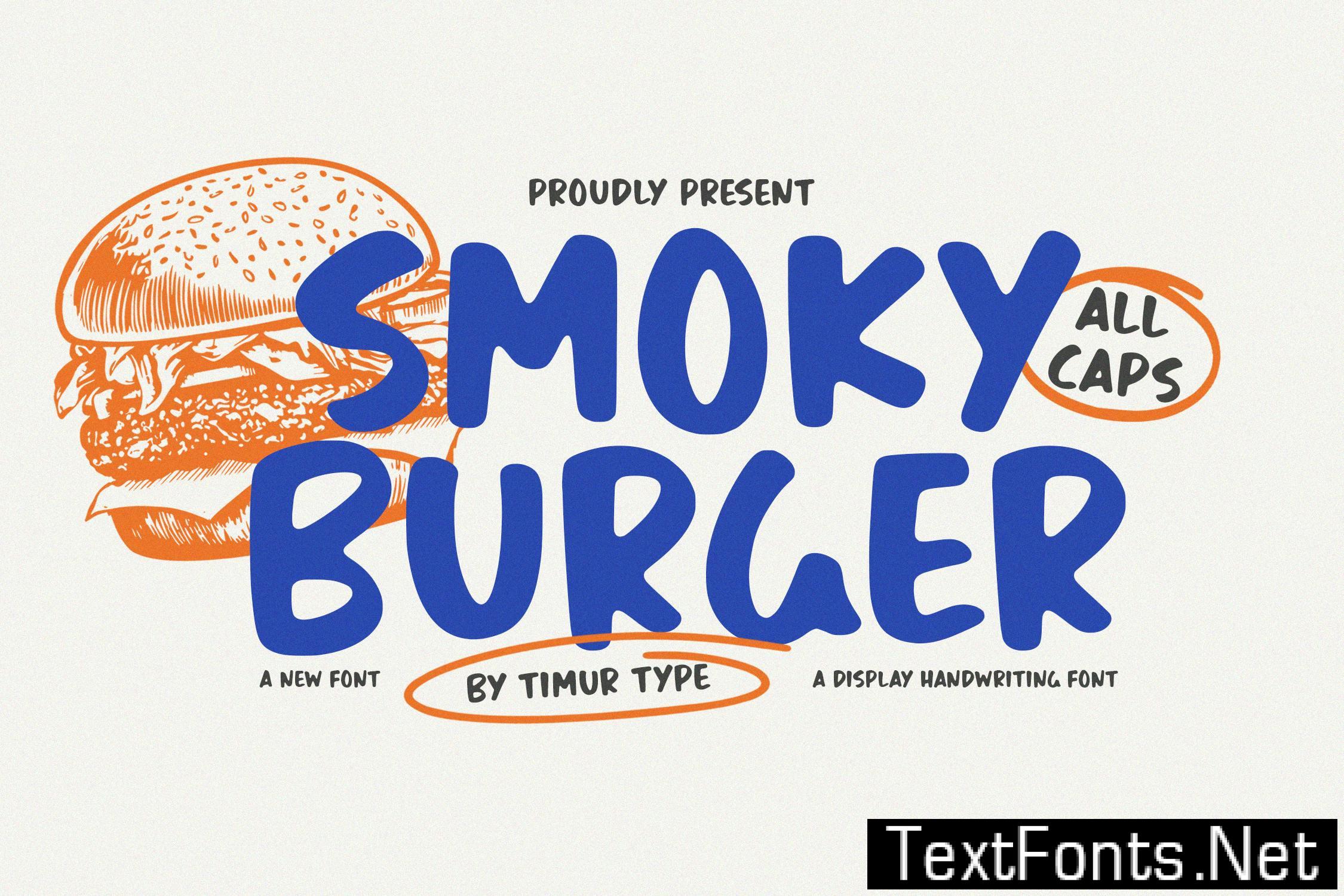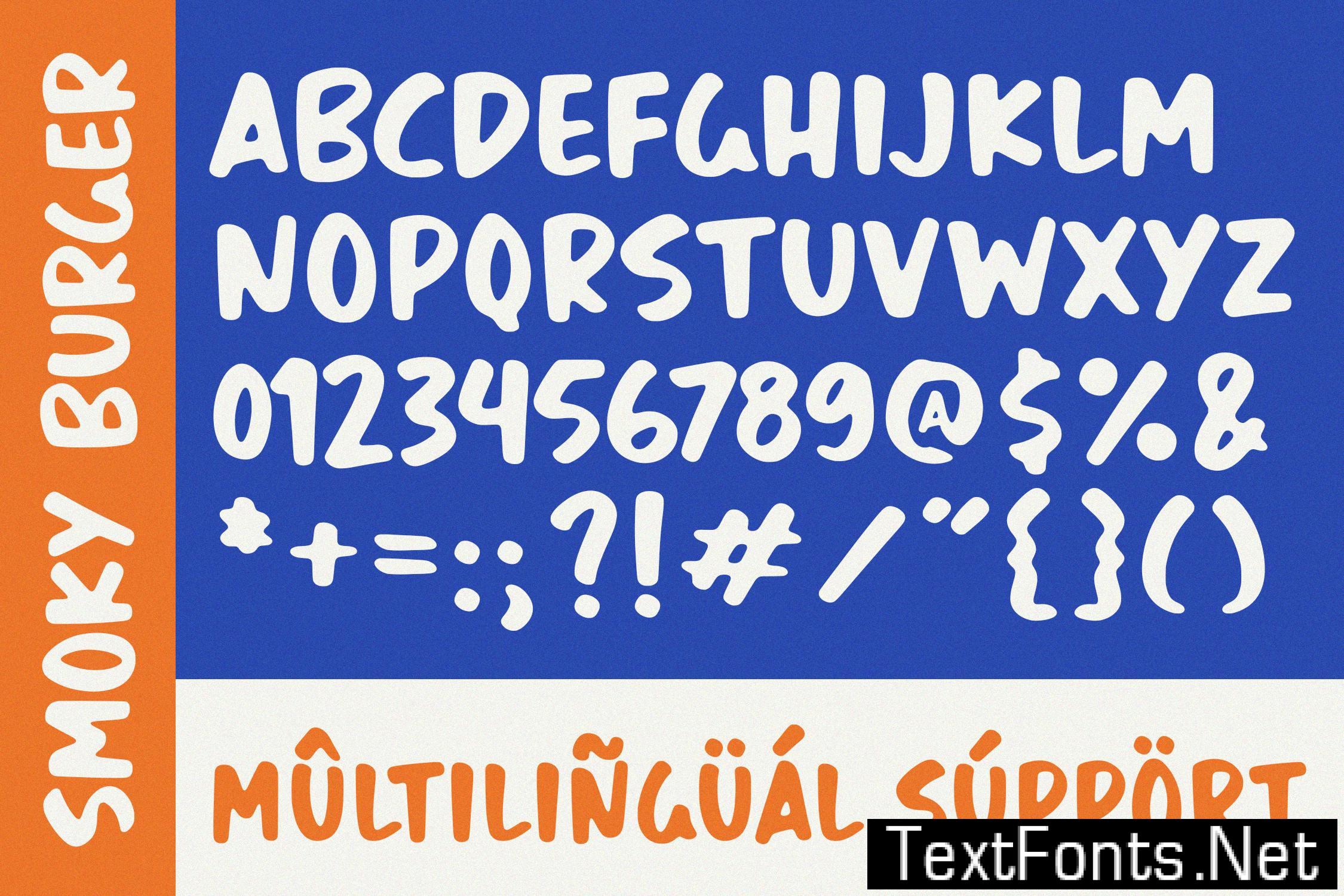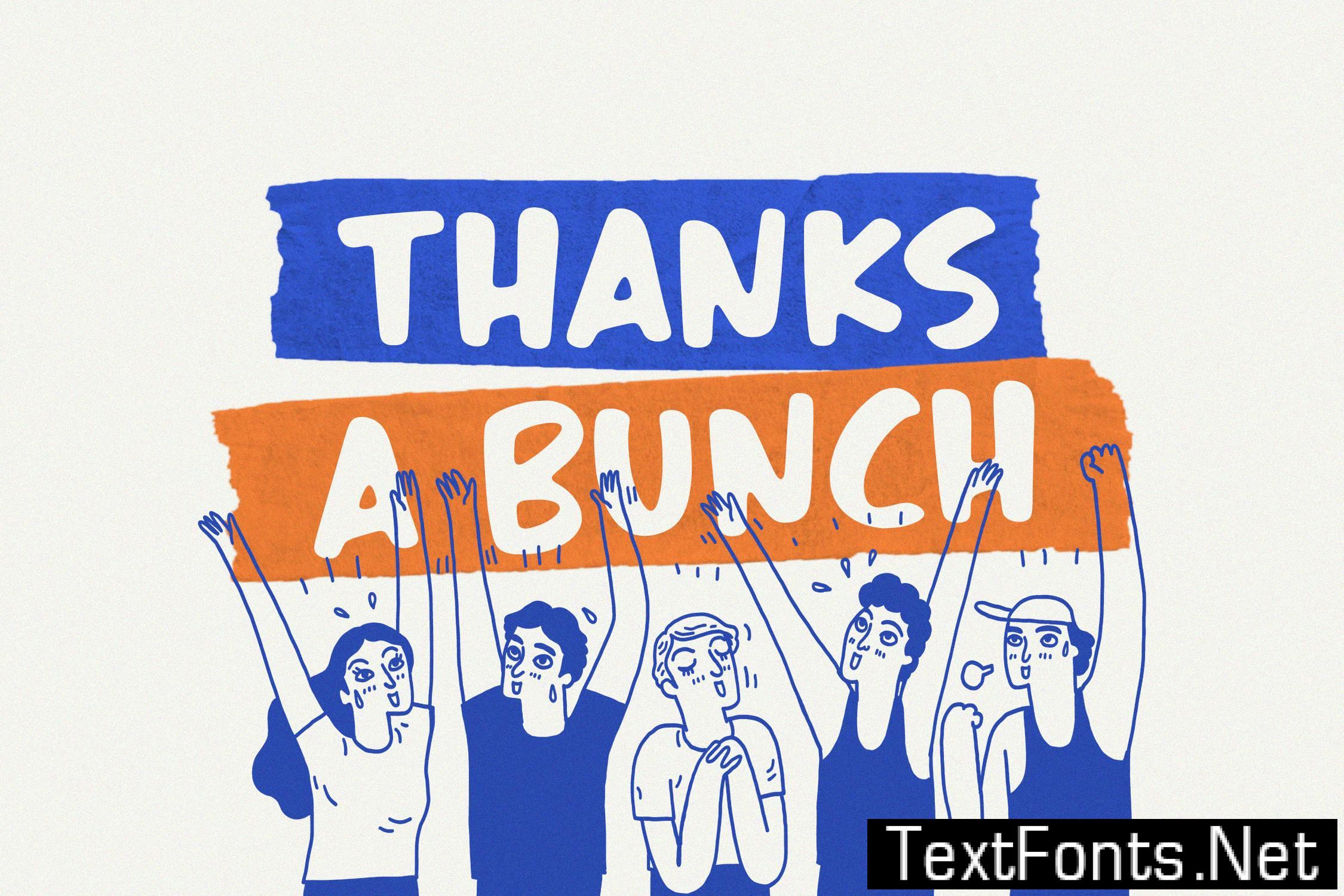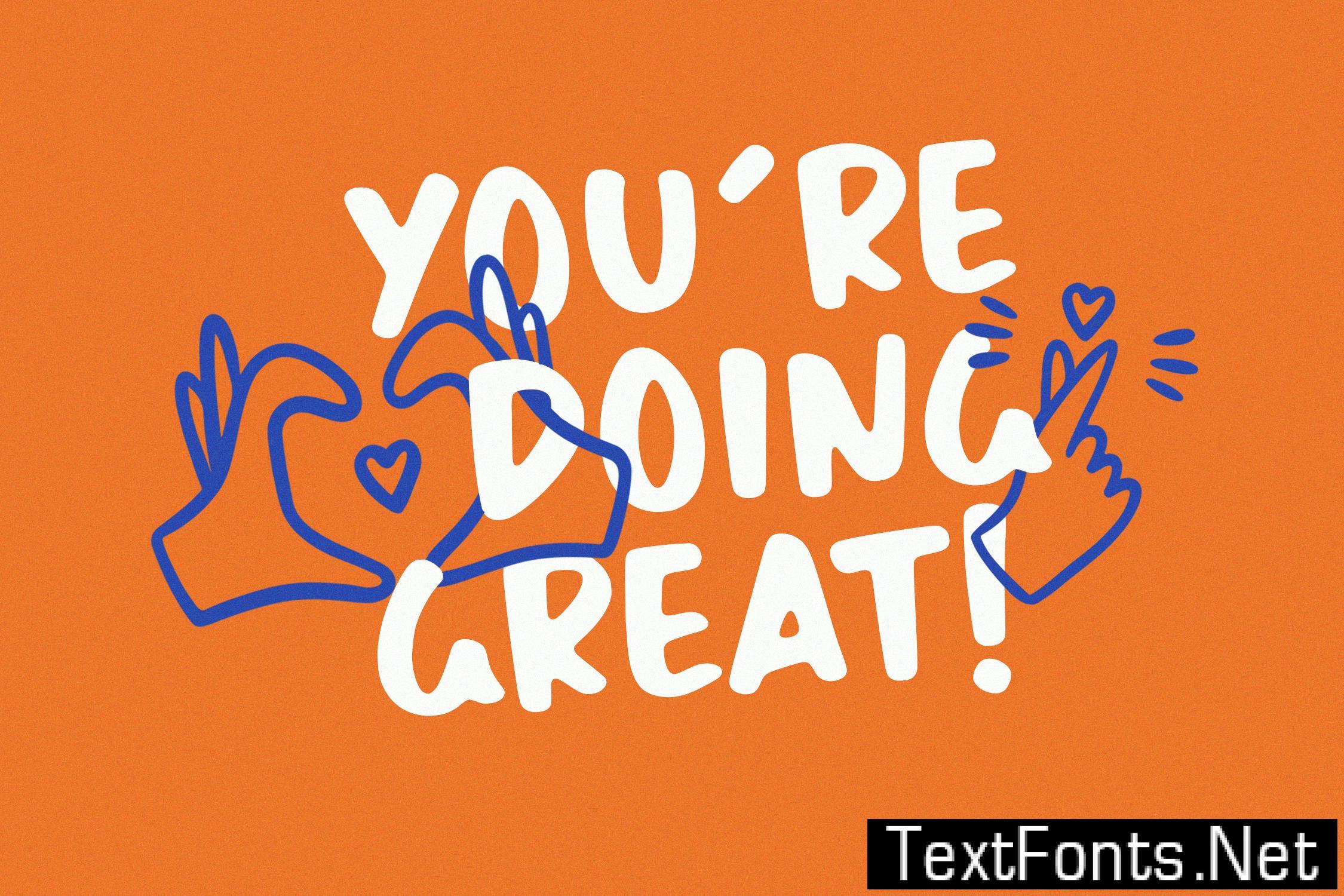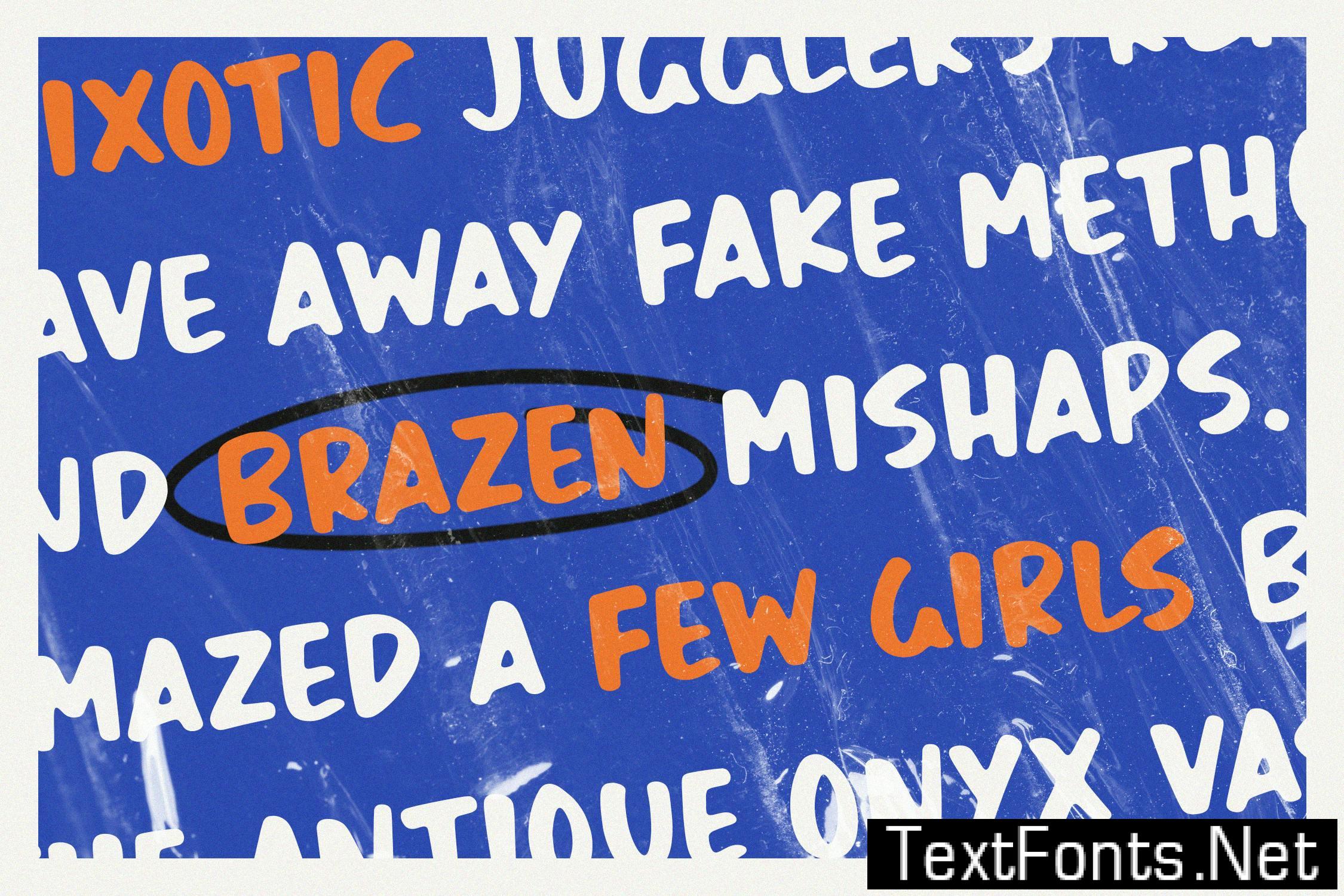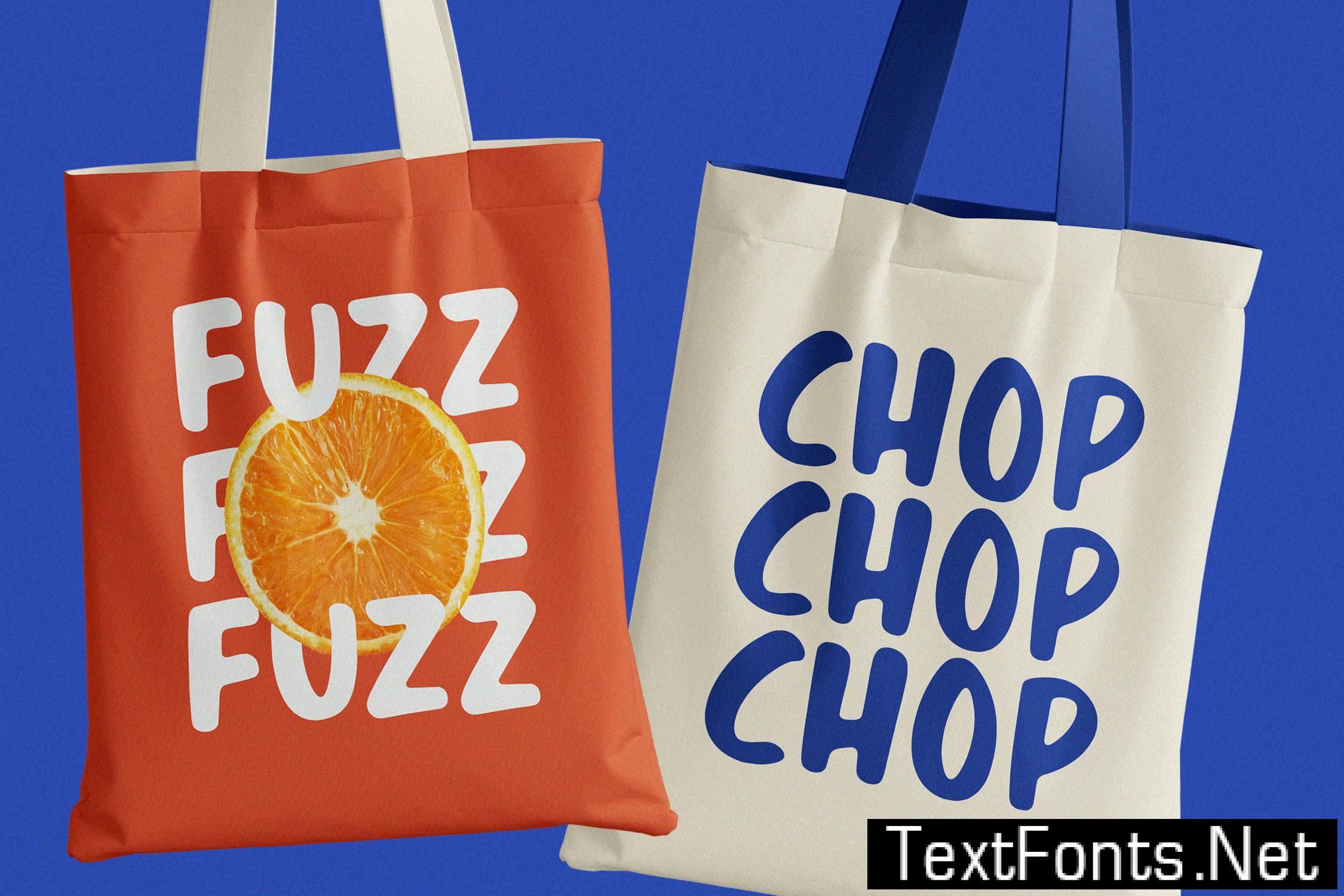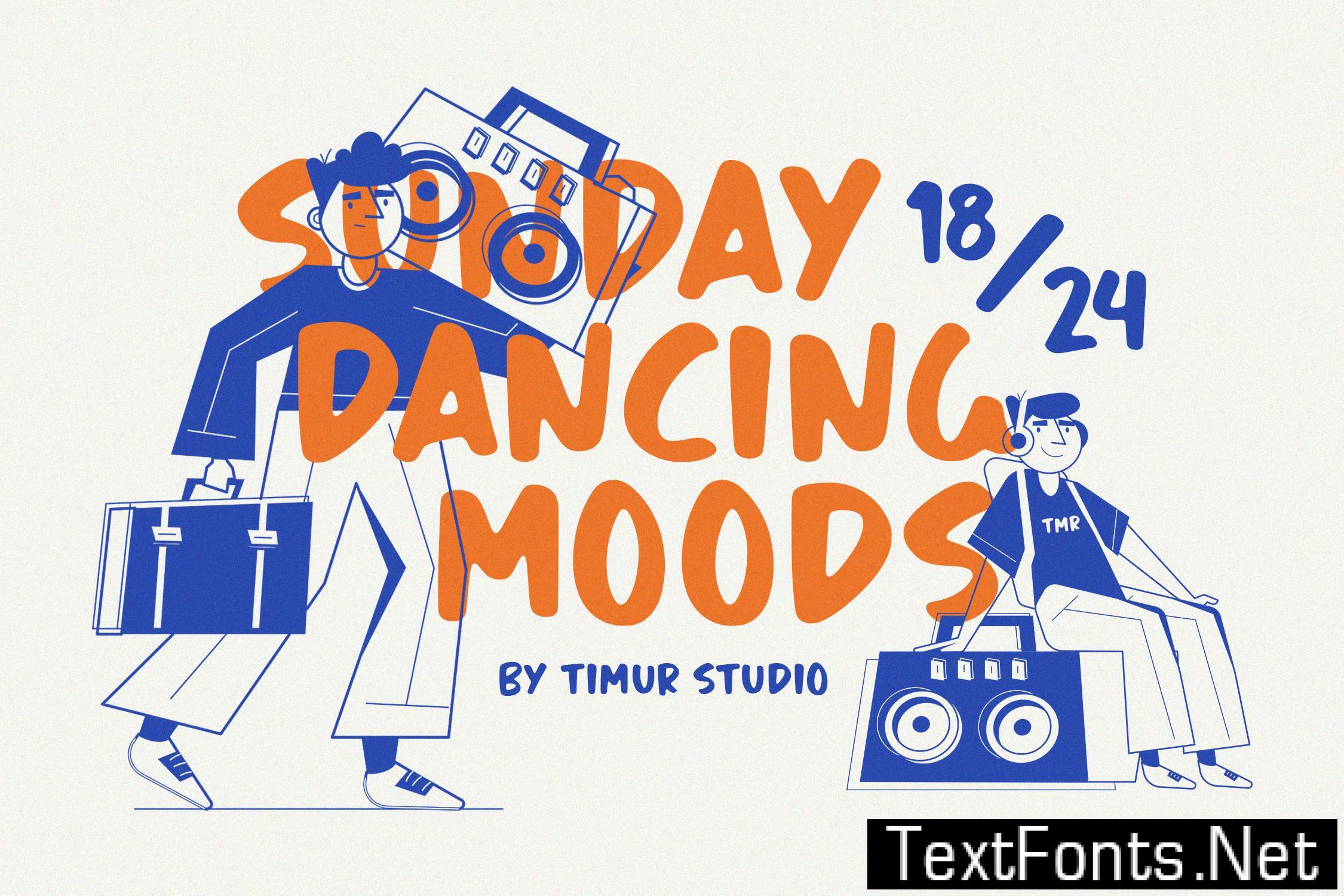
Smoky Burger is a Display Handwriting Font
This font is a bold and flavorful choice for your design projects. With its handcrafted and dynamic letterforms, this font captures the essence of casual and inviting handwriting. The playful curves and varying stroke widths give the Smoky Burger font a friendly and laid-back aesthetic, making it perfect for menus, food packaging, and signage. Whether you’re aiming for a retro diner vibe or a modern artisanal feel, the Smoky Burger font offers versatility. Embrace the inviting energy of the Smoky Burger display handwriting font and add a touch of charm and warmth to your designs, evoking the casual and delicious appeal of a juicy burger joint.
Smoky Burger Font also supports multilingualism